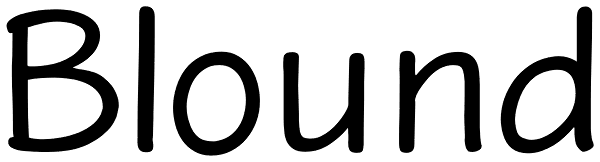
Blound
Blound is a really rough, uneven typeface. It works pretty well at the lower sizes when tested on a laser printer. Originally drawn as a self test to see how I would go about extending the character set. This released version has all the glyphs that...